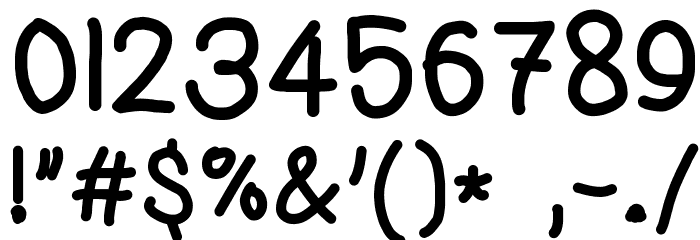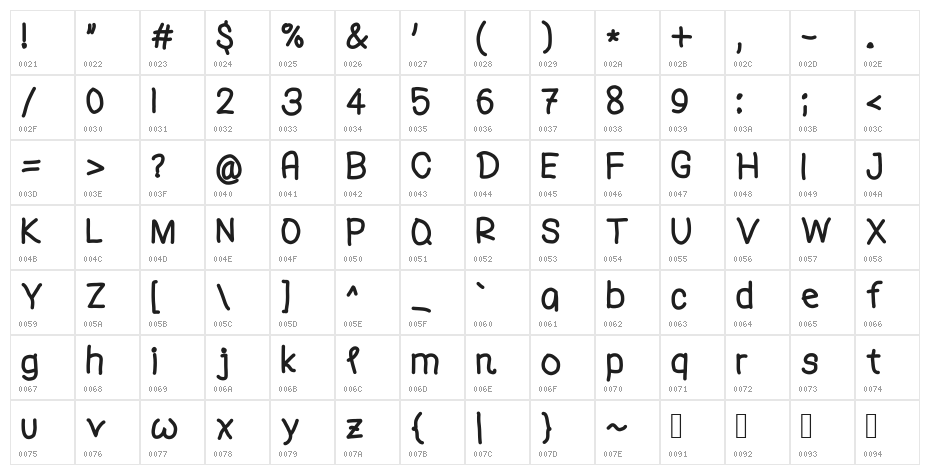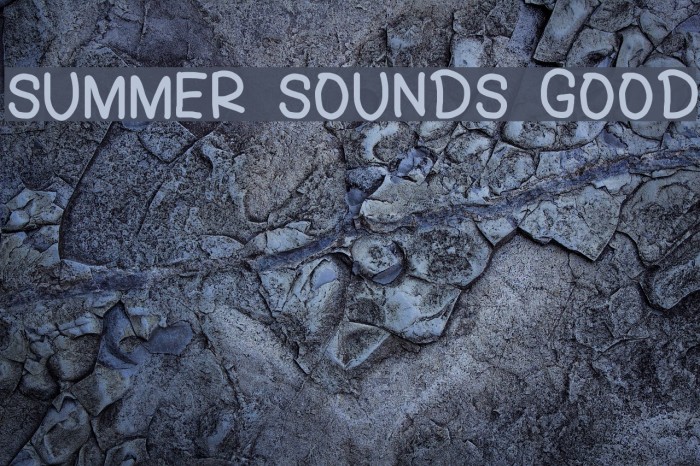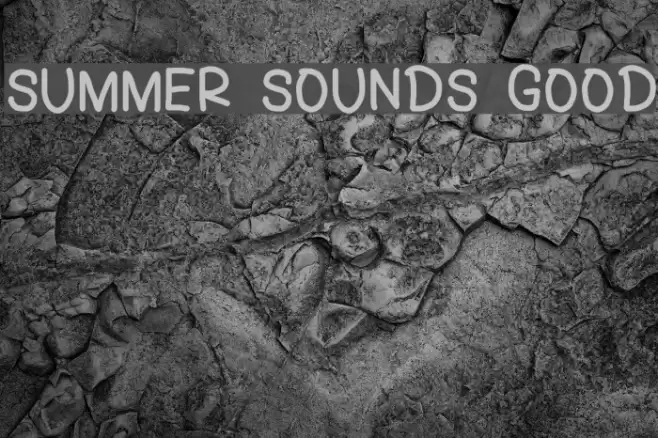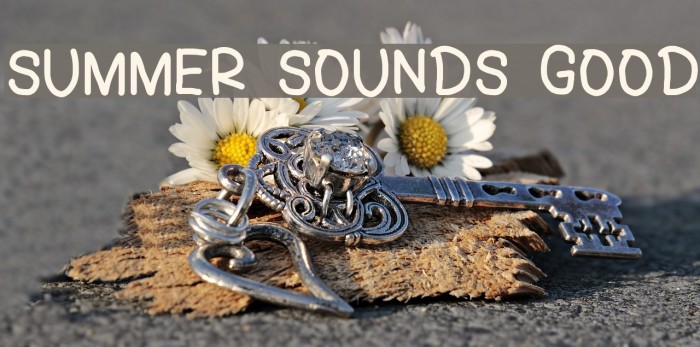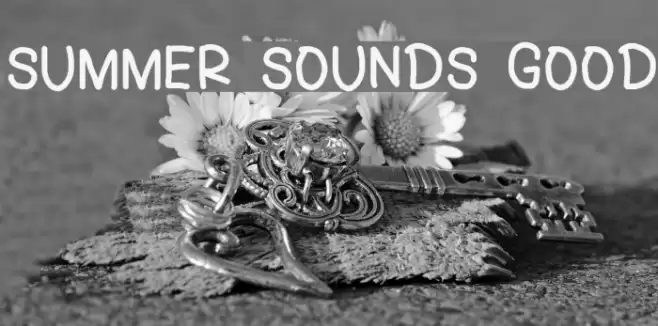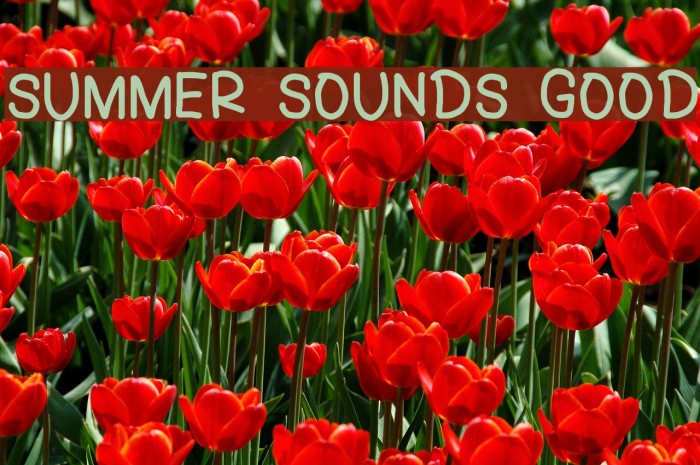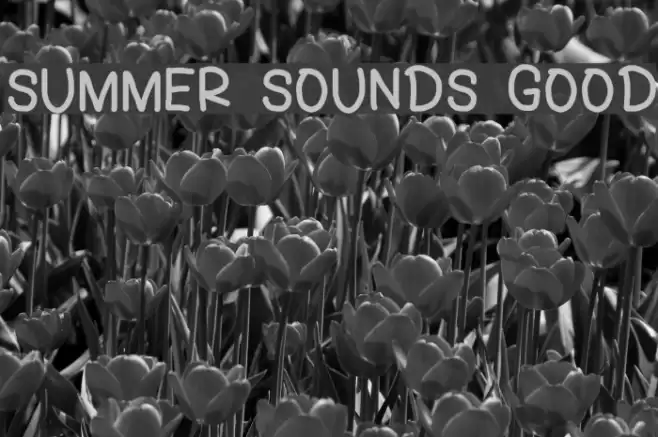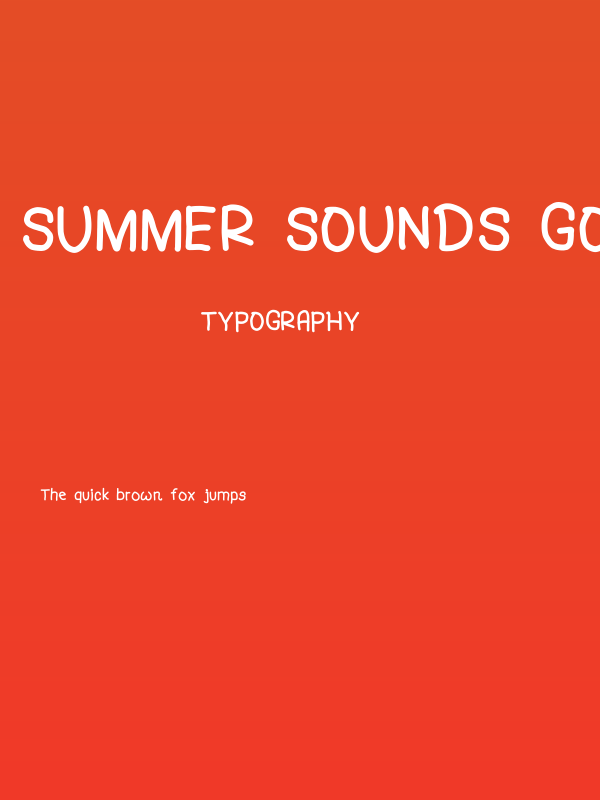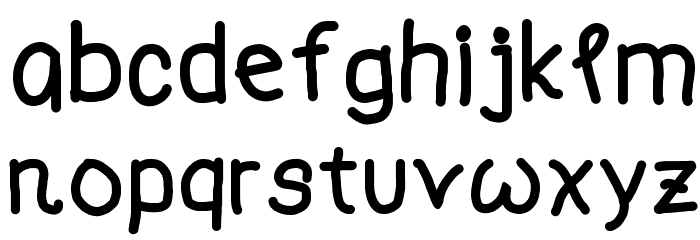
SUMMER SOUNDS GOOD Font
SUMMER SOUNDS GOOD Description
This playful and whimsical font features rounded, hand-drawn characters that convey a sense of fun and informality. The letters are bold and slightly irregular, giving them a unique, organic feel. The uppercase and lowercase letters maintain a consistent style, with smooth curves and a friendly appearance. Numbers and special characters are designed to match the overall aesthetic, making the font versatile for various uses. Its casual and approachable design makes it ideal for projects that aim to evoke a sense of joy and creativity.
| Proposed Projects | Ideal for children's books, playful branding, casual invitations, and creative posters. |